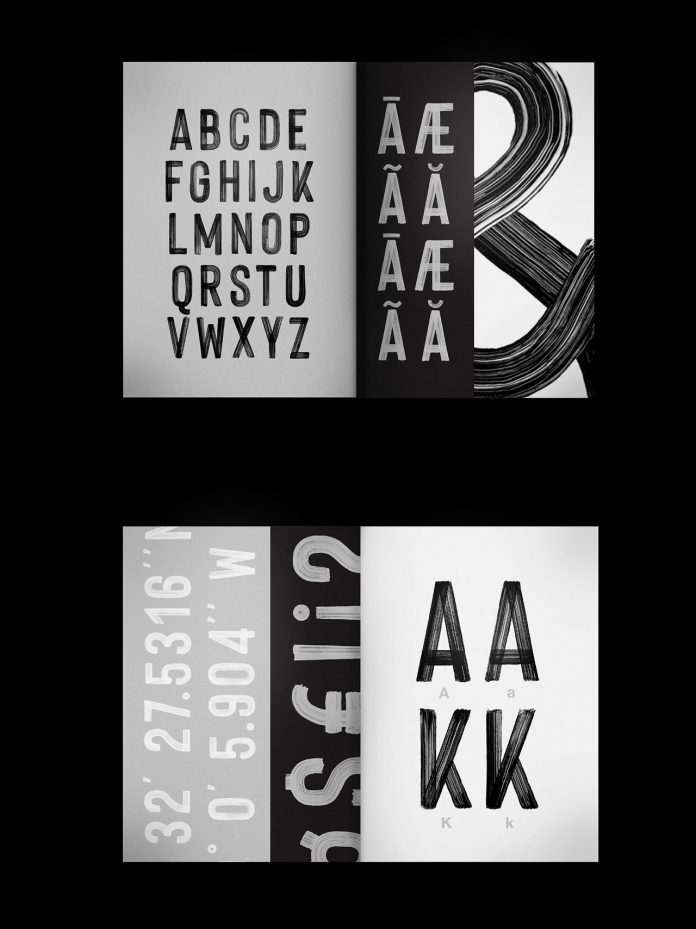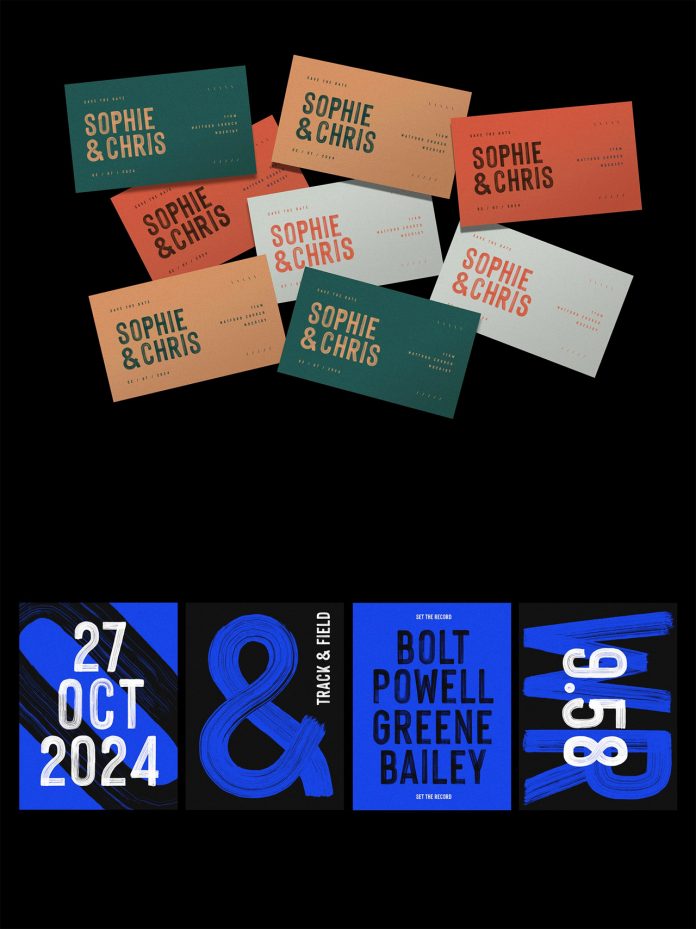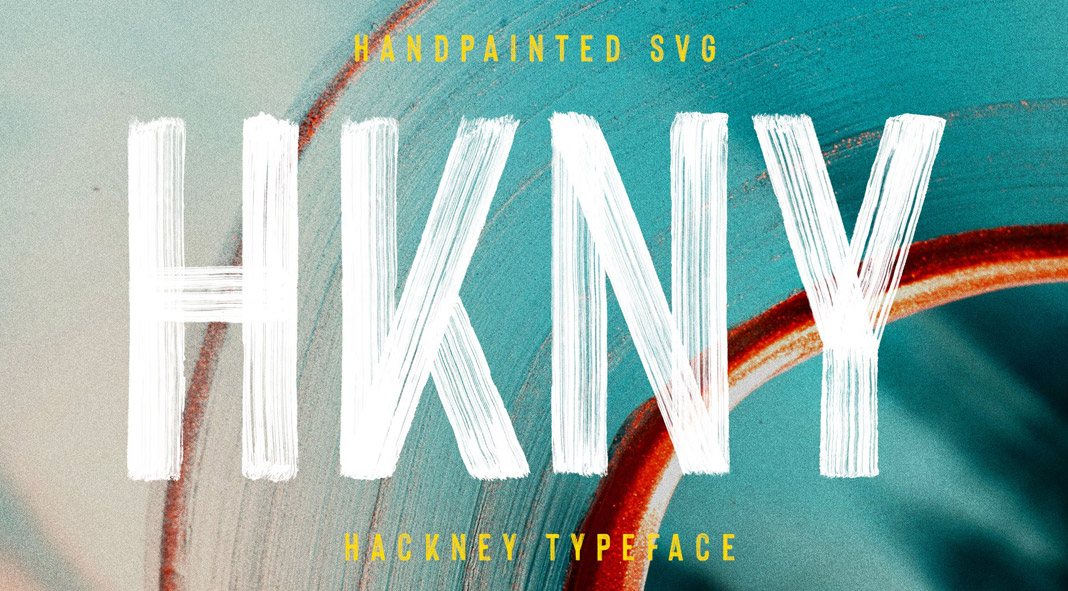
Hackney, a bold hand-painted SVG font created by Ellen Luff.
Designed and published quite recently by Ellen Luff, Hackney is a new SVG font (color font) based on fully hand-painted sans-serif letters. This bold condensed typeface is characterized by brushy imperfections, which results in a completely natural look and feel. Like most SVG fonts, Hackney is rich in details and textures to give your designs a proper hand-painted appearance. SVG fonts work basically like normal fonts, but they offer so much more customization and look totally handmade. you can use them with any color you want.